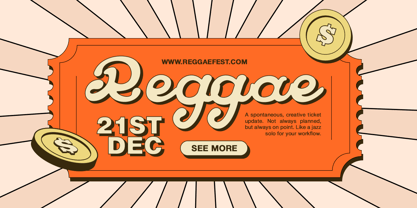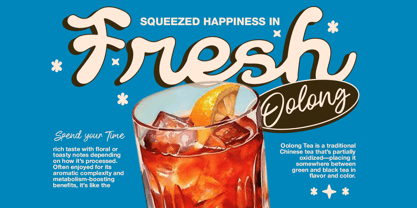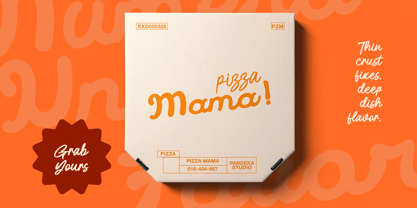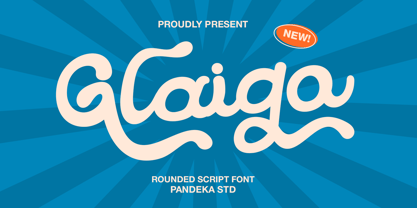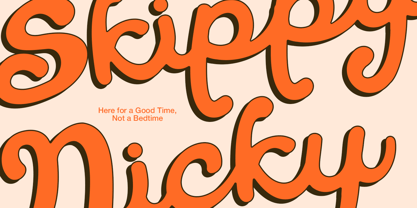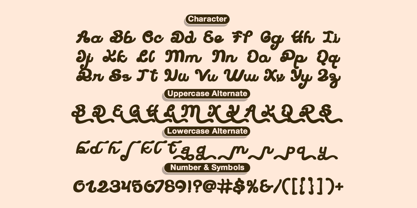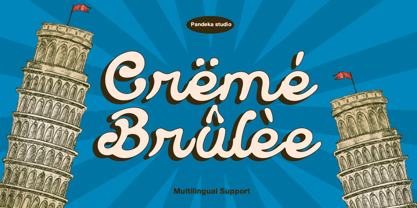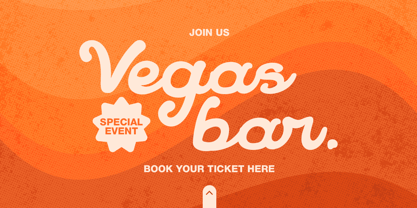
Glaigo
Die Schriftfamilie Glaigo wurde von Sagara Nararya entworfen und von Pandeka Studio veröffentlicht. Glaigo enthält 1 Stile. Mehr über diese Familie
Glaigo – Fun Rounded Script Font
Glaigo is a bold and playful script font with smooth, curvy strokes and a casual retro charm. Perfect for fun rounded script, playful typography, and cheerful design, it’s ideal for logos, packaging, posters, social media, and creative branding. Its modern aesthetic and unique style make Glaigo a standout choice for designs that need both personality and flair.
• 1 Style: Regular
• Full Character Set: Uppercase, lowercase, numbers, symbols, and punctuation
• 50+ Ligatures and alternates
Designer: Sagara Nararya